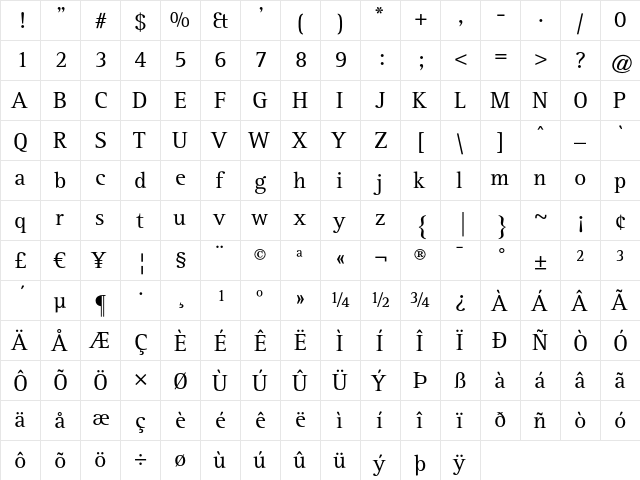
AgfaRotisSerif Regular
Design Context for AgfaRotisSerif Typeface
AgfaRotisSerif carries the refined structure of traditional serif typography, with bracketed terminals and considered proportions that communicate credibility and craft.
Pro Tip: Set AgfaRotisSerif with slightly loose tracking in headlines to let each letterform's detail read clearly at display sizes.